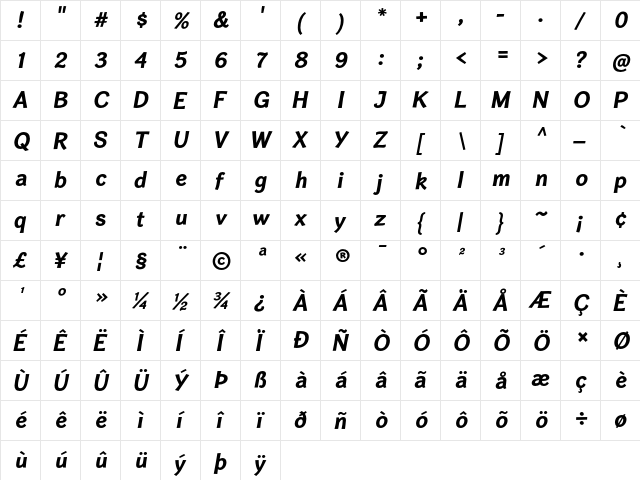
Cardigan Bold Italic
Design Context for Cardigan Typeface
Cardigan is a composed and adaptable typeface that performs quietly and consistently across a wide range of design contexts. Its italic angle brings a sense of urgency and motion to the letterforms. Its bold stroke weight gives it real presence on the page.
Pro Tip: Use Cardigan for emphasis, pull quotes, and subheadings where its slanted energy can add rhythm to the layout.